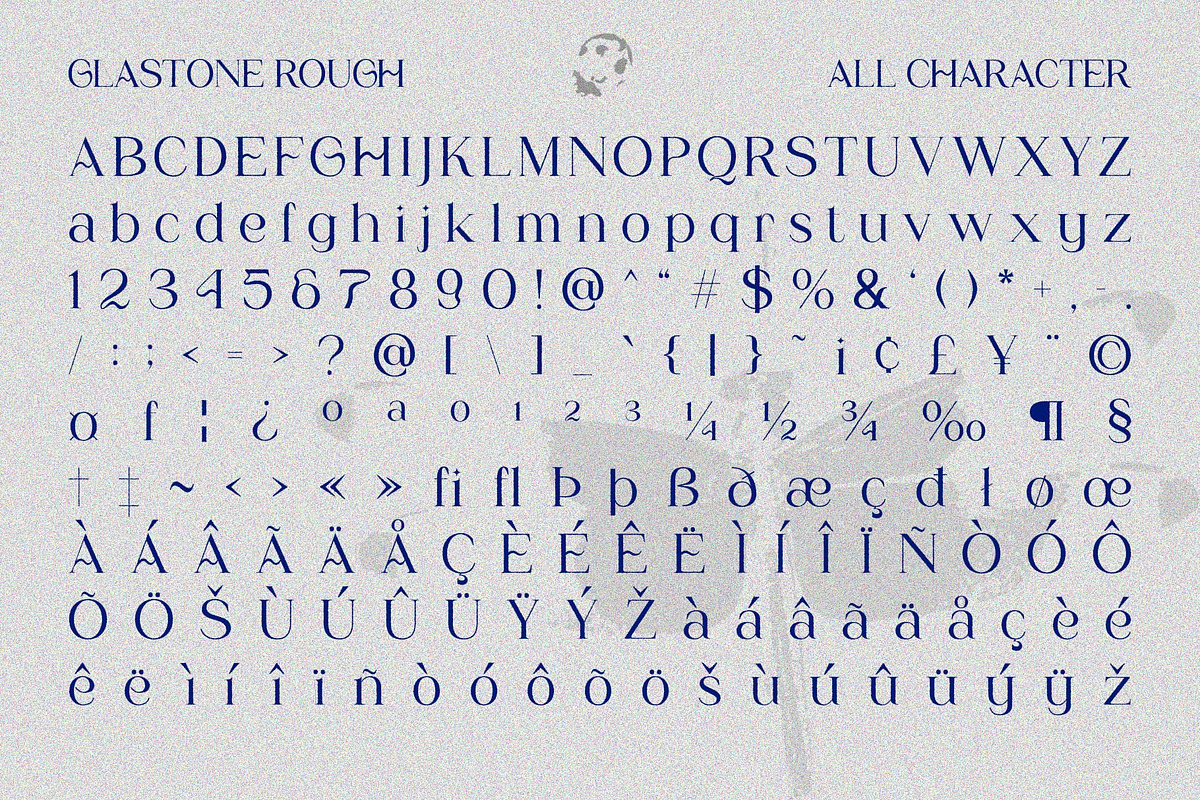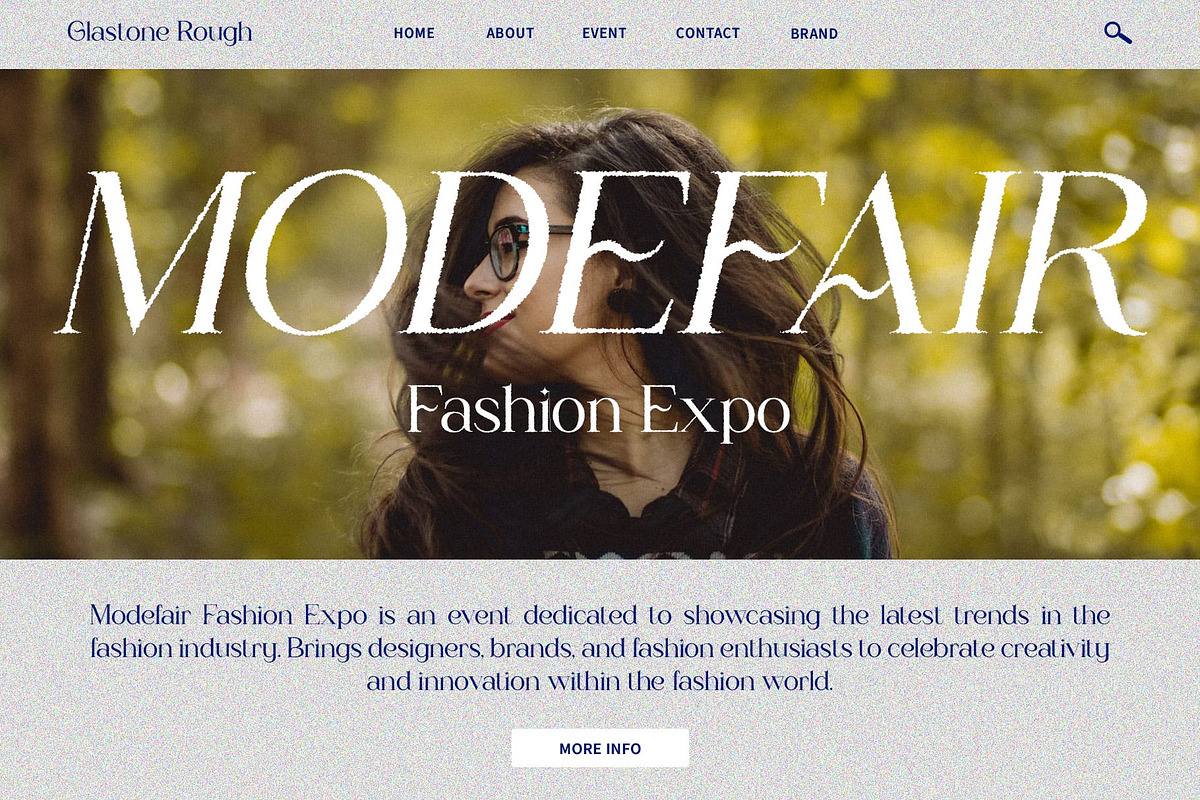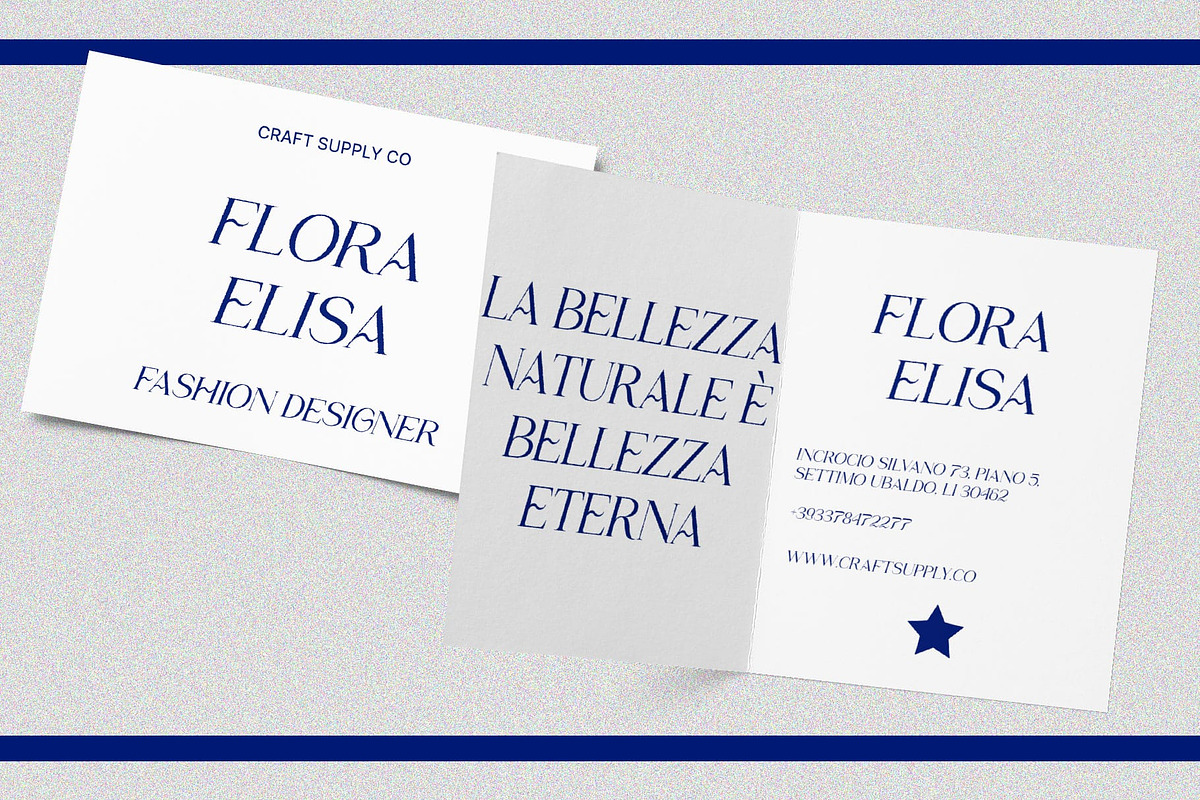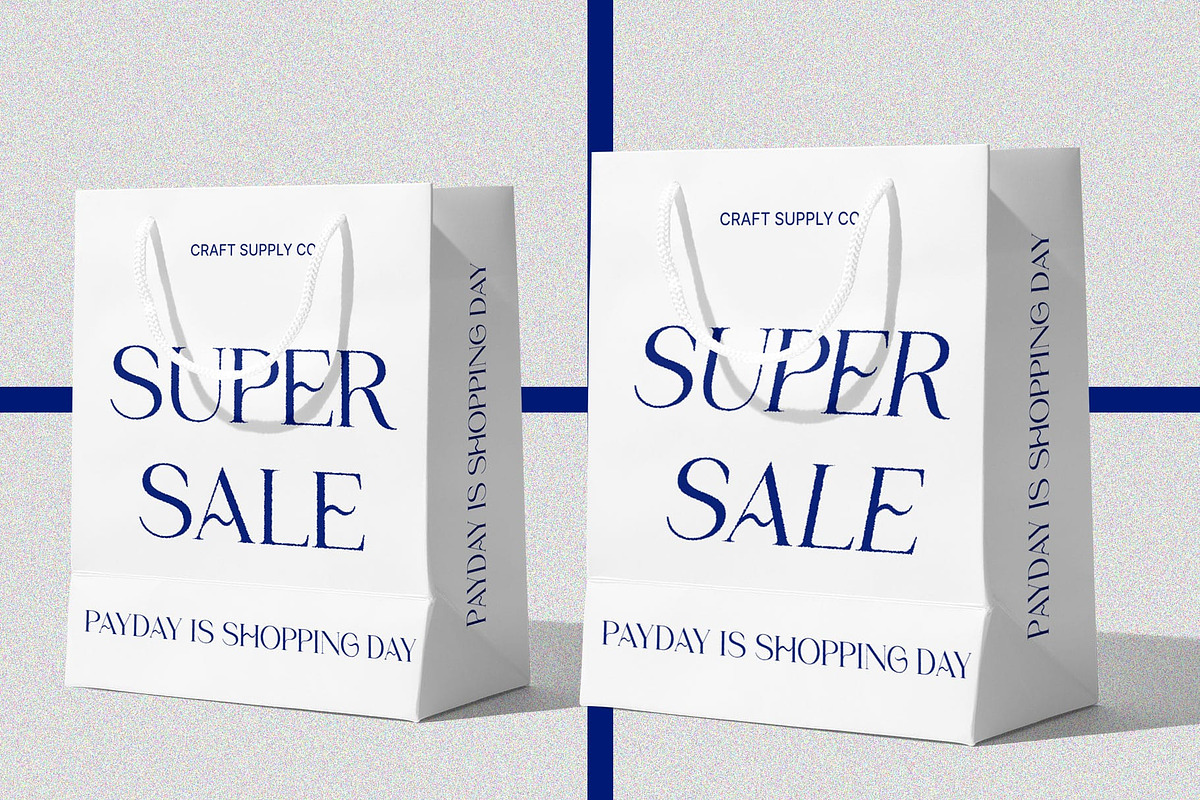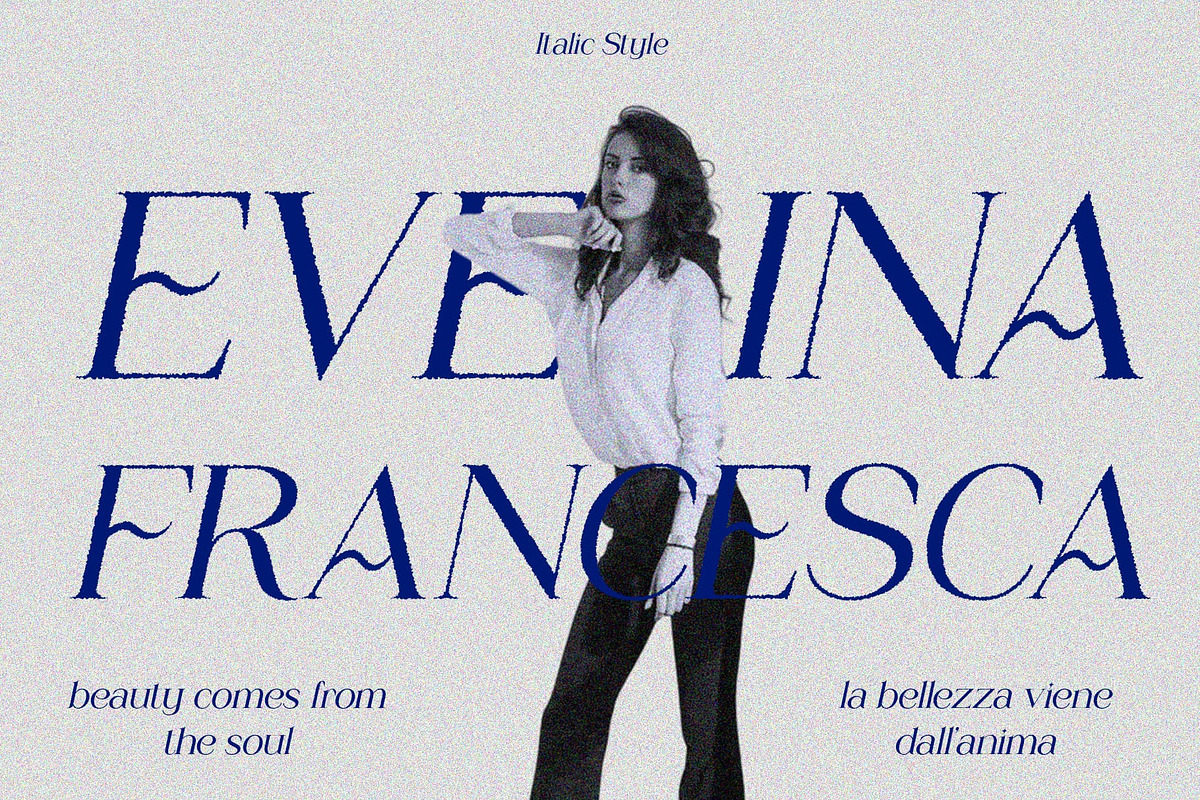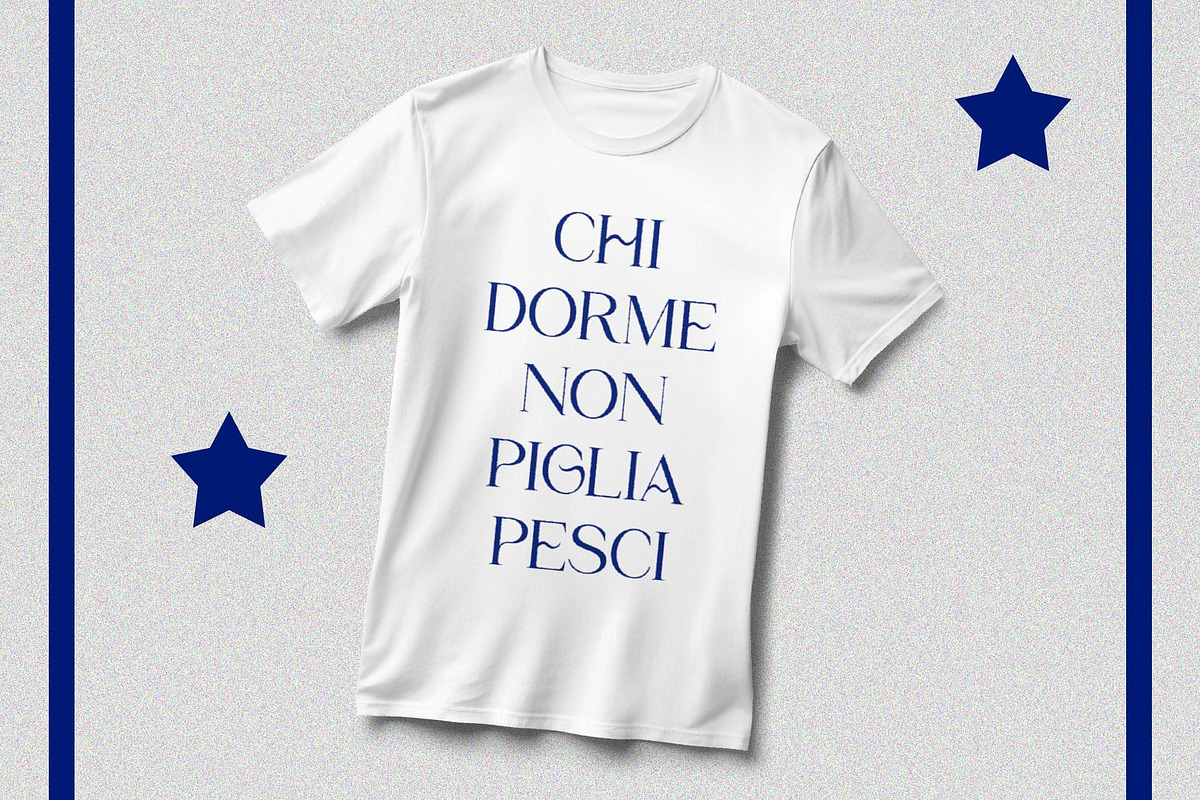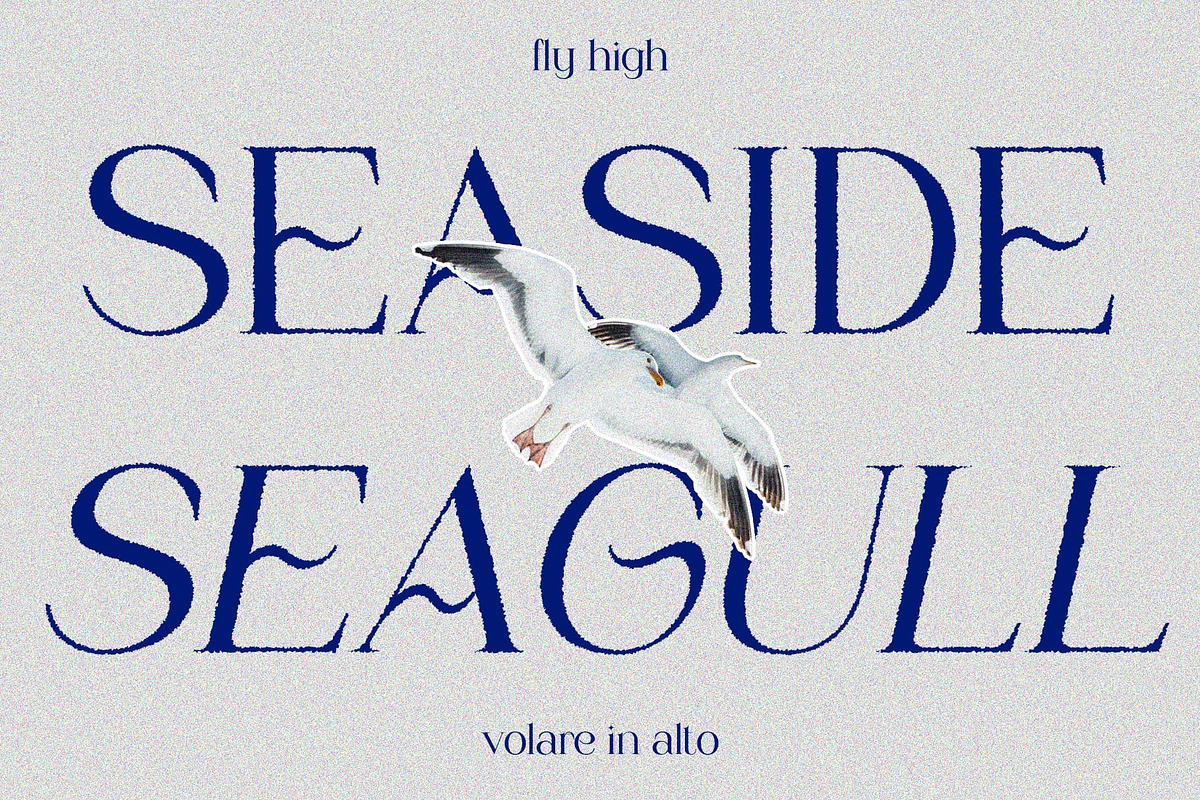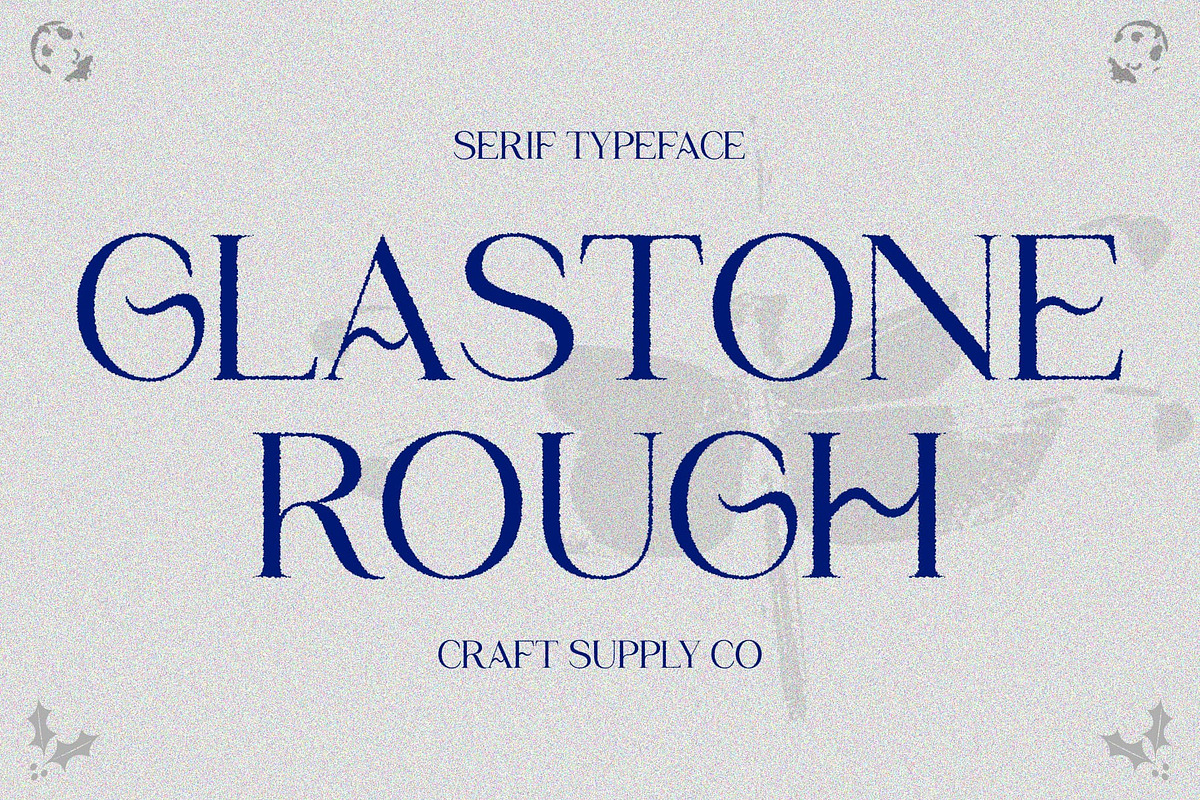
Glastone Rough
Glastone Rough: Vintage Charm with a Cute Twist
High Contrast Serif Display Glastone Rough boasts a high contrast serif display, creating striking visual impact in any design project. Its bold strokes and sharp serifs demand attention, making it ideal for eye-catching headlines and titles.
Vintage Effect The font features a vintage effect that adds a nostalgic charm to its appearance, reminiscent of classic stamp and drawn styles. This retro-inspired aesthetic evokes a sense of authenticity and timelessness, perfect for projects seeking a vintage flair.
Rough Yet Cute Despite its rough texture, This font maintains a cute and endearing quality, making it perfect for projects that require a playful touch. Its rough edges and imperfect lines give it character and personality, enhancing its appeal in various design contexts.
Versatile Application From posters and invitations to branding and packaging, This font offers versatility in its application. Its combination of vintage charm and playful elegance makes it suitable for a wide range of design projects, allowing designers to unleash their creativity with confidence.
Vintage Appeal with Playful Elegance This font combines the timeless appeal of vintage design with a charmingly cute twist, making it a delightful choice for designers looking to infuse their projects with character and personality. Whether used for bold headlines or subtle accents, Glastone Rough adds a touch of whimsy and nostalgia to any design endeavor.